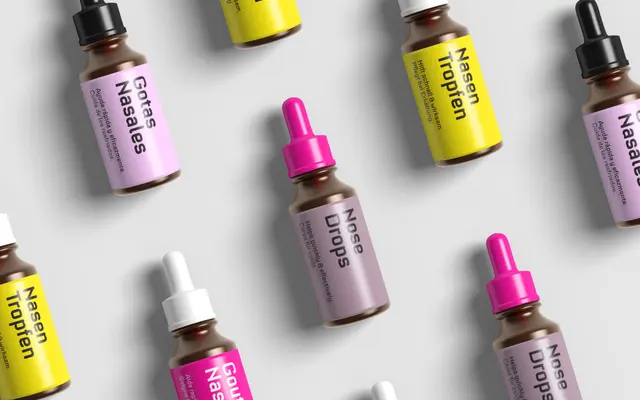
Supernormale
A grid-based neo-grotesque with rounded corners, designed by reverse-engineering pixel font letterforms into smooth vector shapes.
Supernormale was developed by starting from pixel font letter shapes and then smoothing them into vectors, giving the typeface a modular, technical quality that retains the cultural memory of screen-based typography. The rounded corners soften its strict grid construction, making it usable for both display headlines and continuous text on screen or in print. Four styles cover Regular, Italic, Semibold and Bold, supplemented by eleven pixel fonts and an icon picture font, making it a self-contained system suited to corporate, IT and technical communications.
Described explicitly as a square sans neo-grotesque; its grid-based, modular construction with rounded corners places it firmly in the neo-grotesque tradition with a geometric-pixel influence.